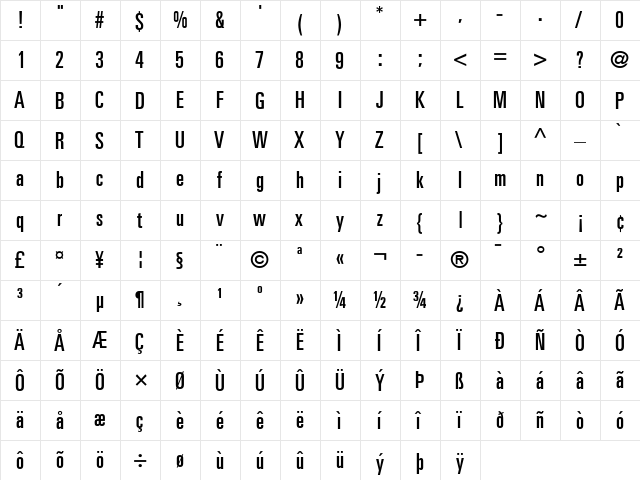
Univers UltraCondensed Regular
Design Context for Univers UltraCondensed Typeface
Univers UltraCondensed is a composed and adaptable typeface that performs quietly and consistently across a wide range of design contexts. The condensed width makes it efficient for tight spaces without sacrificing legibility.
Pro Tip: Use Univers UltraCondensed in both headline and body roles to test its range before committing to a single application.